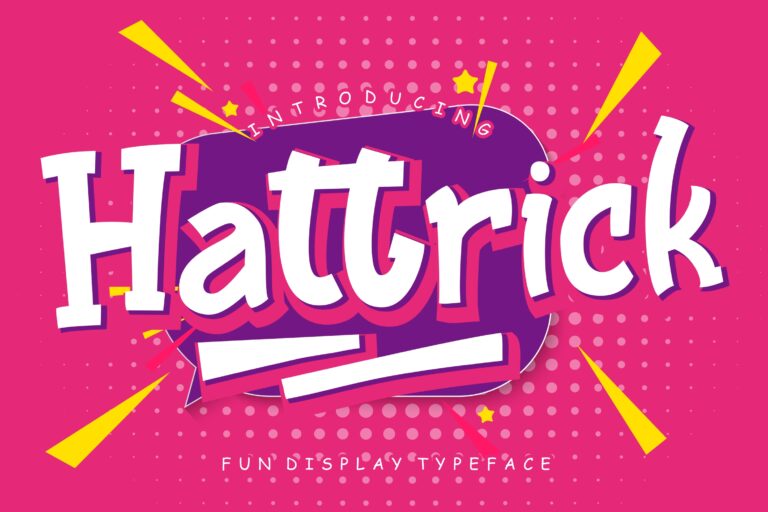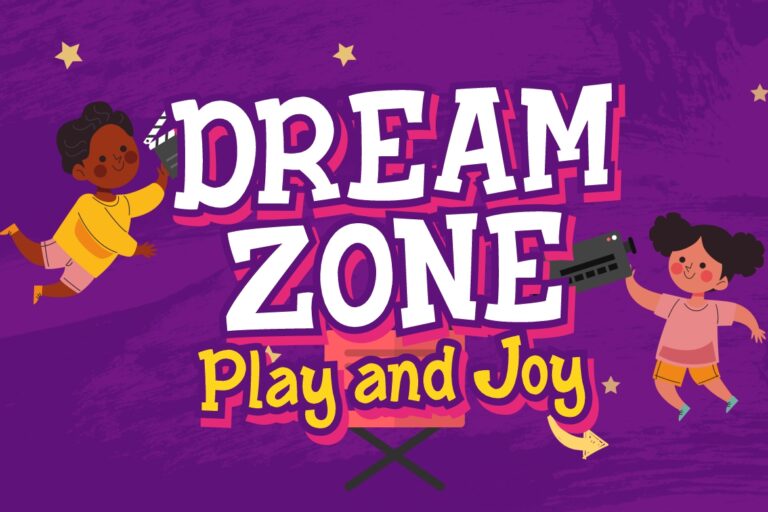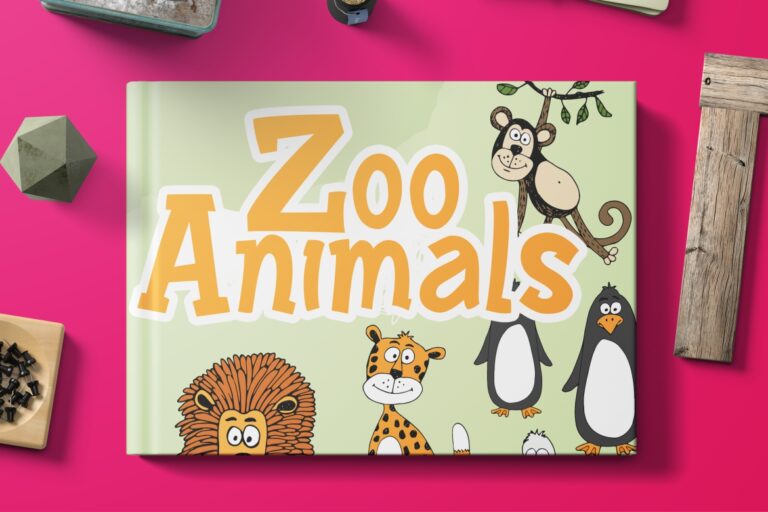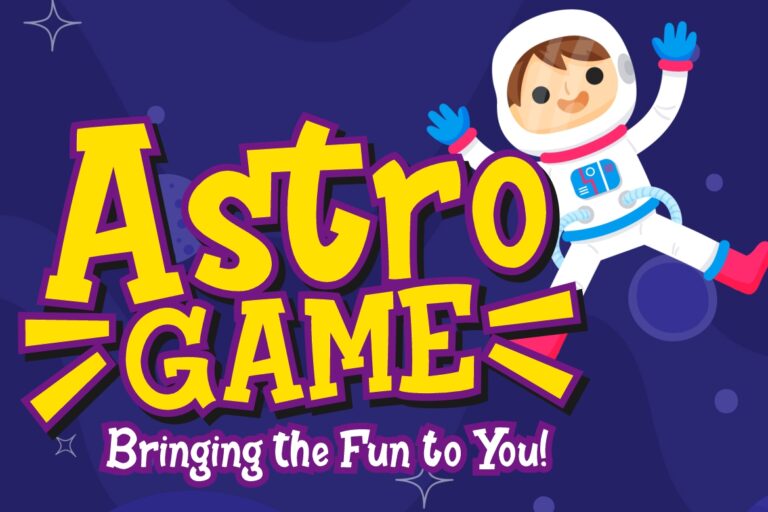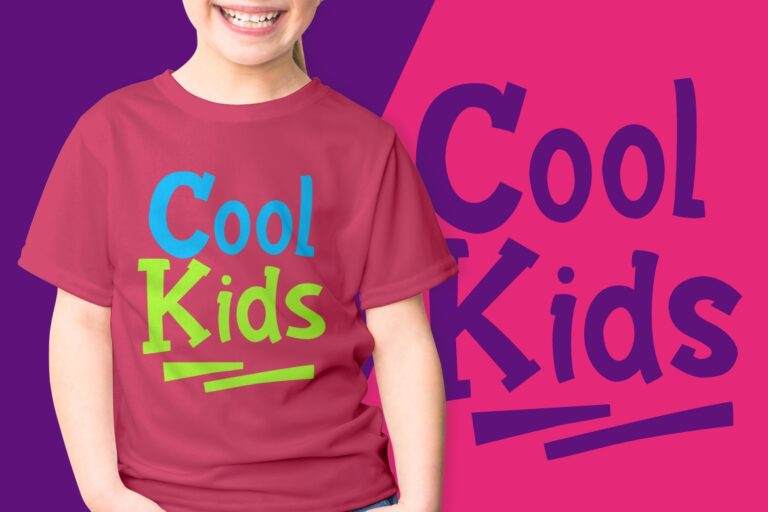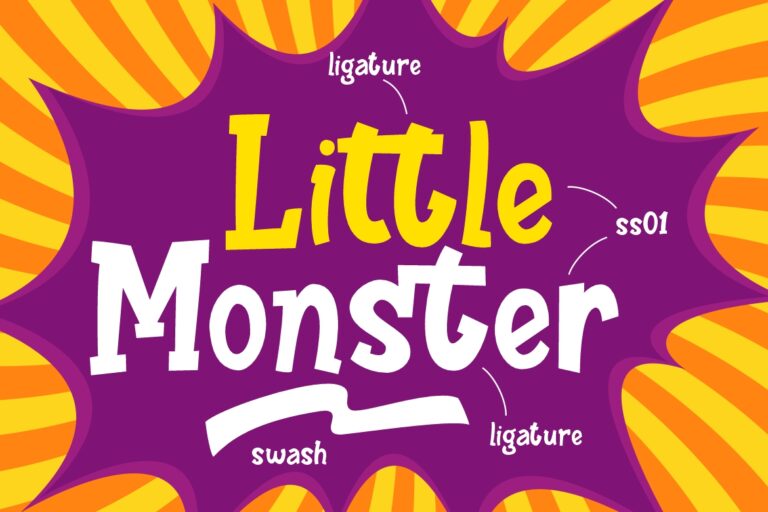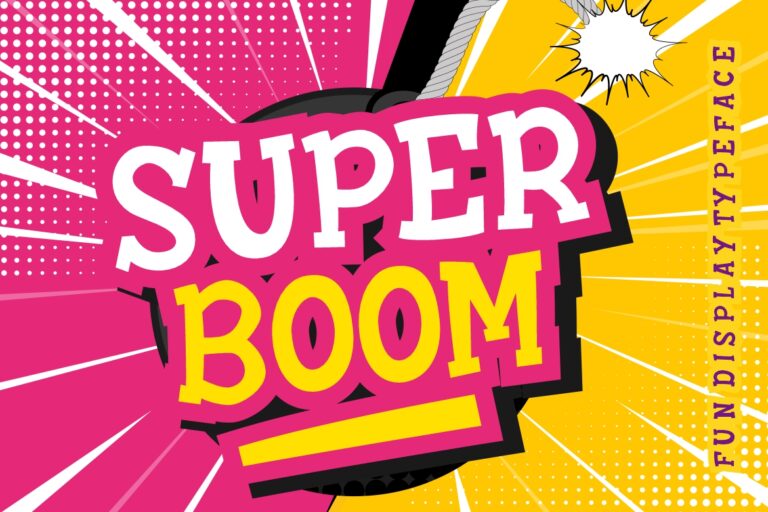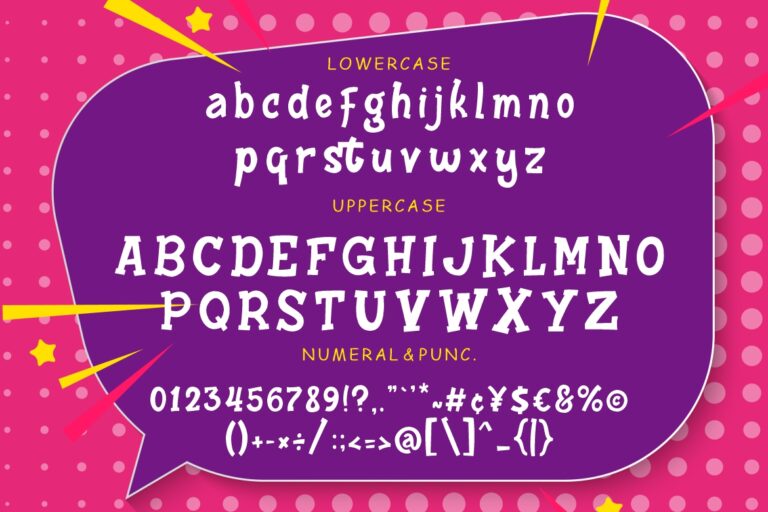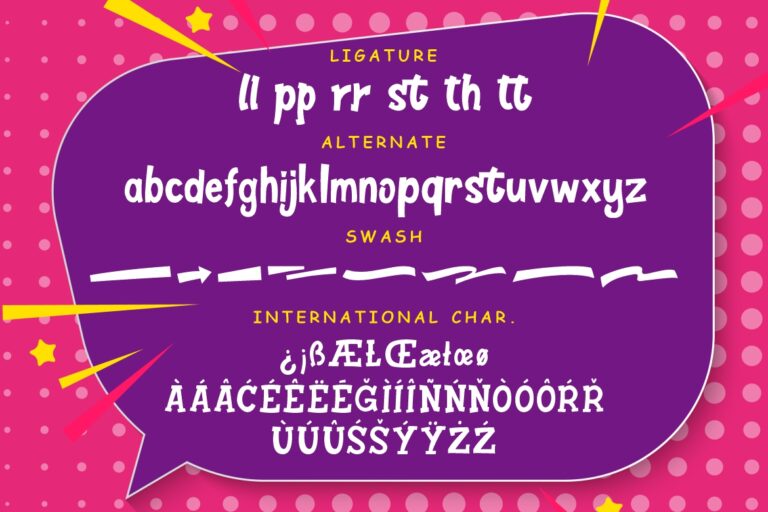
Hattrick Fun Children Typeface
Hattrick is fun display font that perfect for kindergarten and children event.
Hattrick would perfect for photography, watermark, social media posts, advertisements, logos & branding, invitation, product designs, label, stationery, wedding designs, product packaging, special events or anything that need handwriting taste.
- Ton of glyphs
- Ligature & Alternate